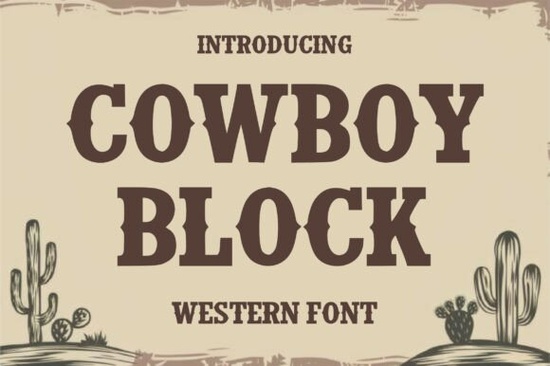
If you're looking for a typeface that instantly brings the rugged spirit of the Wild West to your work, Cowboy Block Font is worth a close look. This bold Western display font combines heavy block serifs with clean, vintage cowboy styling. It’s an all-caps typeface built from thick, sturdy letterforms with small decorative spurs on the serifs that give it that old-time saloon feel. Whether you're designing posters, restaurant signage, or apparel for outdoor brands, this font delivers high impact and a clear masculine edge.
What makes Cowboy Block different from other Western fonts?
Many Western fonts lean heavily into script styles or overly distressed textures, but Cowboy Block takes a cleaner approach. The condensed weight keeps letters tight and readable, making it a strong candidate for headlines and short titles where every letter needs to stand out. The spurs (or wedges) are subtle enough to add character without hurting legibility. This balance makes it suitable for both digital and print applications from a rustic logo to a bold album cover for country music.
Designers who need a typeface that says “frontier” without looking like a cliché will appreciate how the font pairs with modern layouts. You can use it on a plain background for a minimalist poster, or layer it over vintage textures for a more weathered feel. The font works especially well when you want a powerful, authentic Western aesthetic without overwhelming the rest of your composition.
How can you use Cowboy Block Font in real projects?
The font's versatile look opens up a wide range of creative uses. Here are some common applications:
-
Restaurant signage – Saloons, BBQ joints, and steakhouse menus benefit from the bold block letters. The condensed shape fits nicely on narrow signboards or chalkboards.
Apparel branding – Screen print shirts, caps, and leather patches for outdoor or rustic goods look great with this font. The strong lines hold up well on fabric.
Wanted posters and event flyers – The vintage cowboy vibe is perfect for theater productions, country fairs, or themed parties. Pair it with a rough paper texture for an authentic feel.
Album art and music branding – Country musicians, folk bands, and Americana artists often need a title font that feels grounded and bold. Cowboy Block delivers that instantly.
Badges and labels – Whether for a craft beer bottle or a handcrafted leather good, the font adds a sturdy, trustworthy look to small designs.
What to consider when pairing Cowboy Block with other elements
Because this font is so strong, it works best when you give it room to breathe. Avoid crowding it with too many other bold graphics. A simple background with a muted color palette like rusty red, dusty brown, or faded black lets the letterforms shine. You can also layer it with stay funky font display fonts for a contrasting headline and subhead combination, though keep the hierarchy clear.
For print-on-demand sellers, make sure the font size is large enough for small items like stickers or badges. The condensed weight helps, but test readability at smaller scales. If you're creating a full design in Canva or Photoshop, consider adding a subtle drop shadow or outline to enhance the blocky shape. The font also pairs well with simple line art or iconography reminiscent of vintage cattle brands and horseshoes.
Tips for designing with a bold Western display font
-
Keep your text limited to a few words – The font is designed for titles and short phrases, not long paragraphs.
Use all caps consistently – Since Cowboy Block is an all-caps font, avoid mixing case to maintain its intended look.
Try complementary fonts – For body copy, pair it with a simple sans serif like glossy bubble font display fonts or a clean slab serif to create contrast while staying cohesive.
Test on different backgrounds – The thick strokes can sometimes blend into dark backgrounds. Add a light stroke or use a lighter shade of the font color to ensure readability.
Consider rough textures – Overlaying a subtle noise or paper texture can enhance the vintage feel without distorting the letters.
Quick checklist before finalizing your design with Cowboy Block
- Have you limited the text to a headline or short title?
- Is the font size large enough (especially for small formats like badges)?
- Does the background offer enough contrast for the bold strokes?
- Did you test the design in both color and black/white?
- If pairing with another font, is the hierarchy clear?